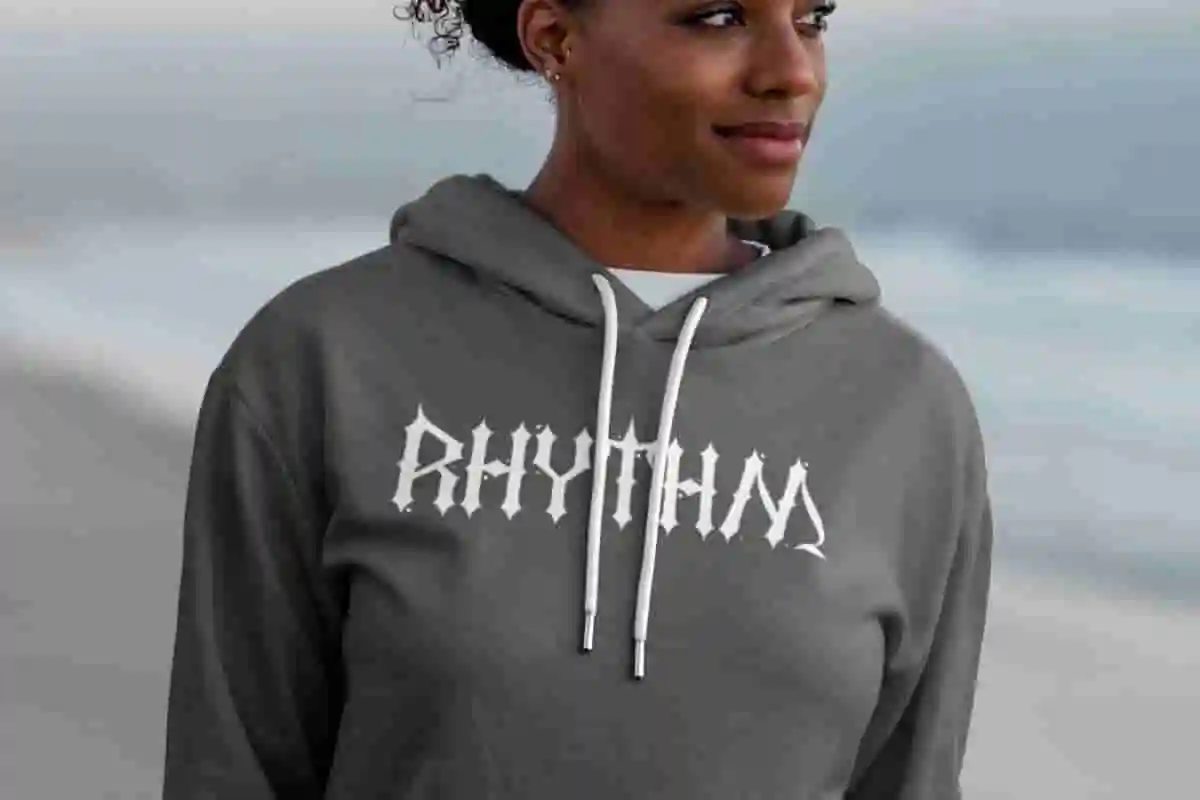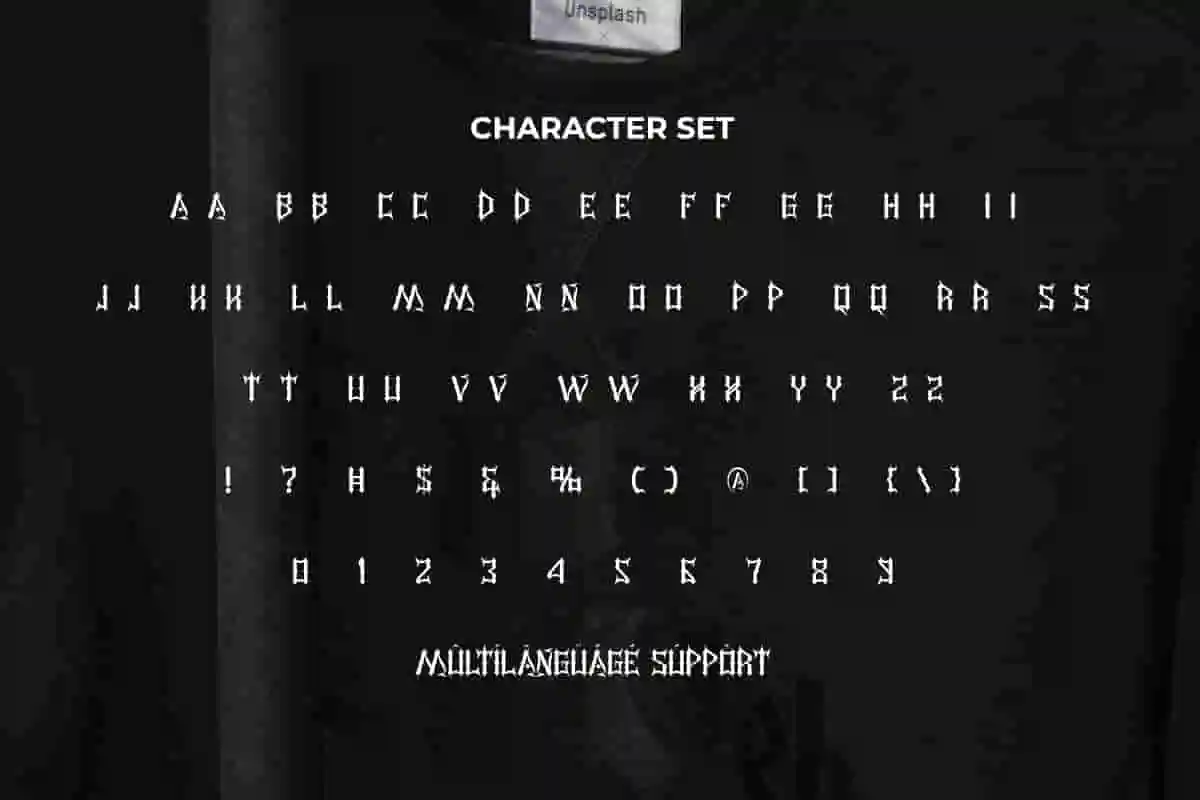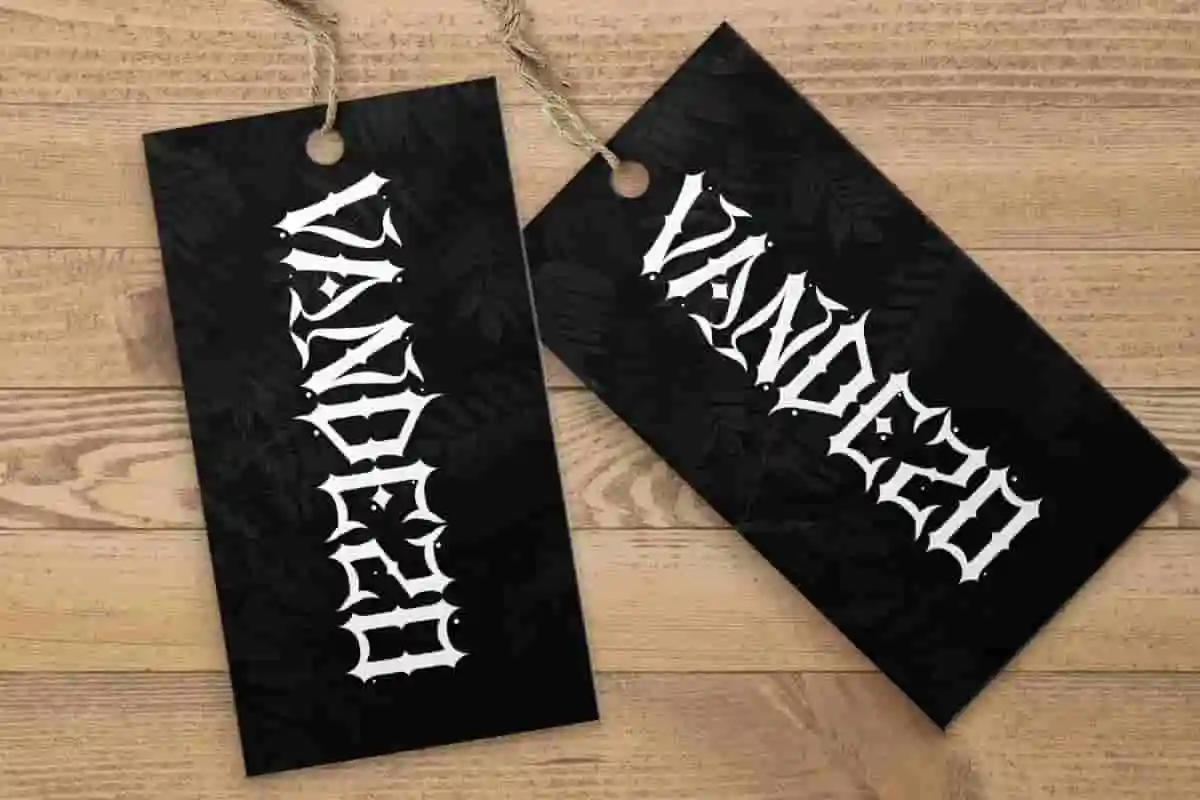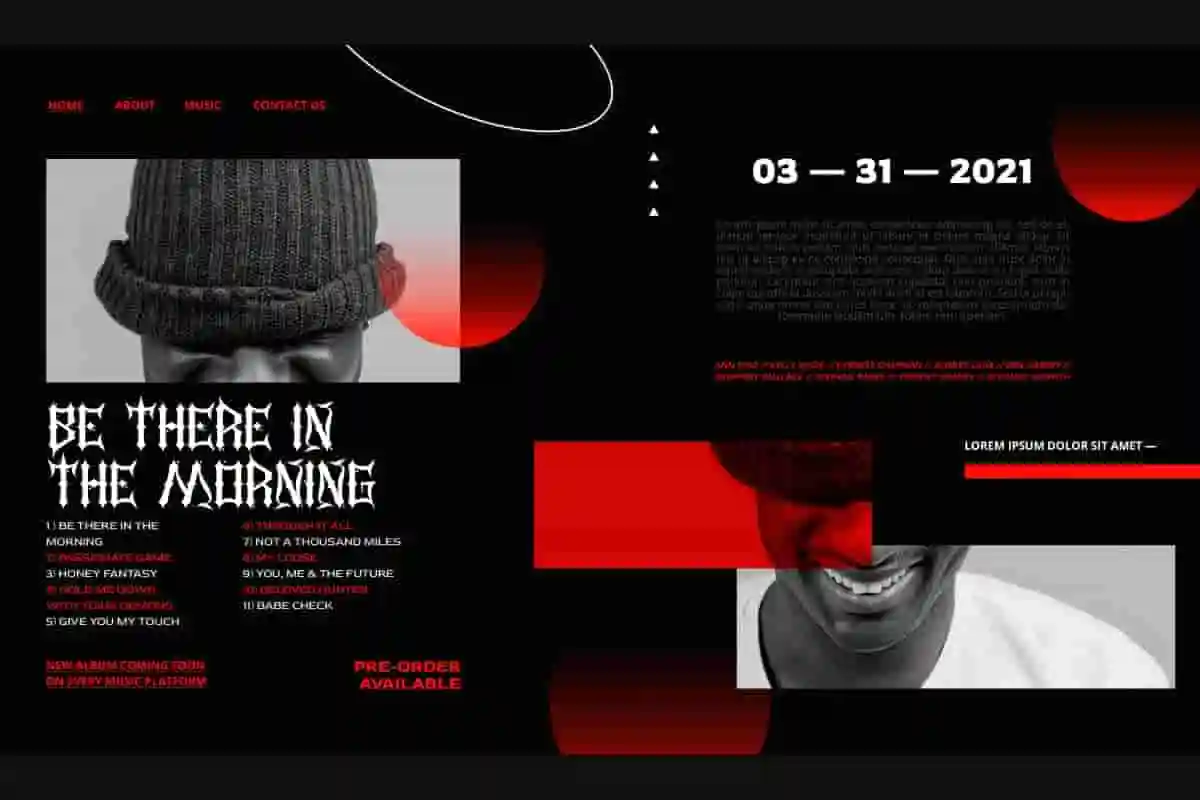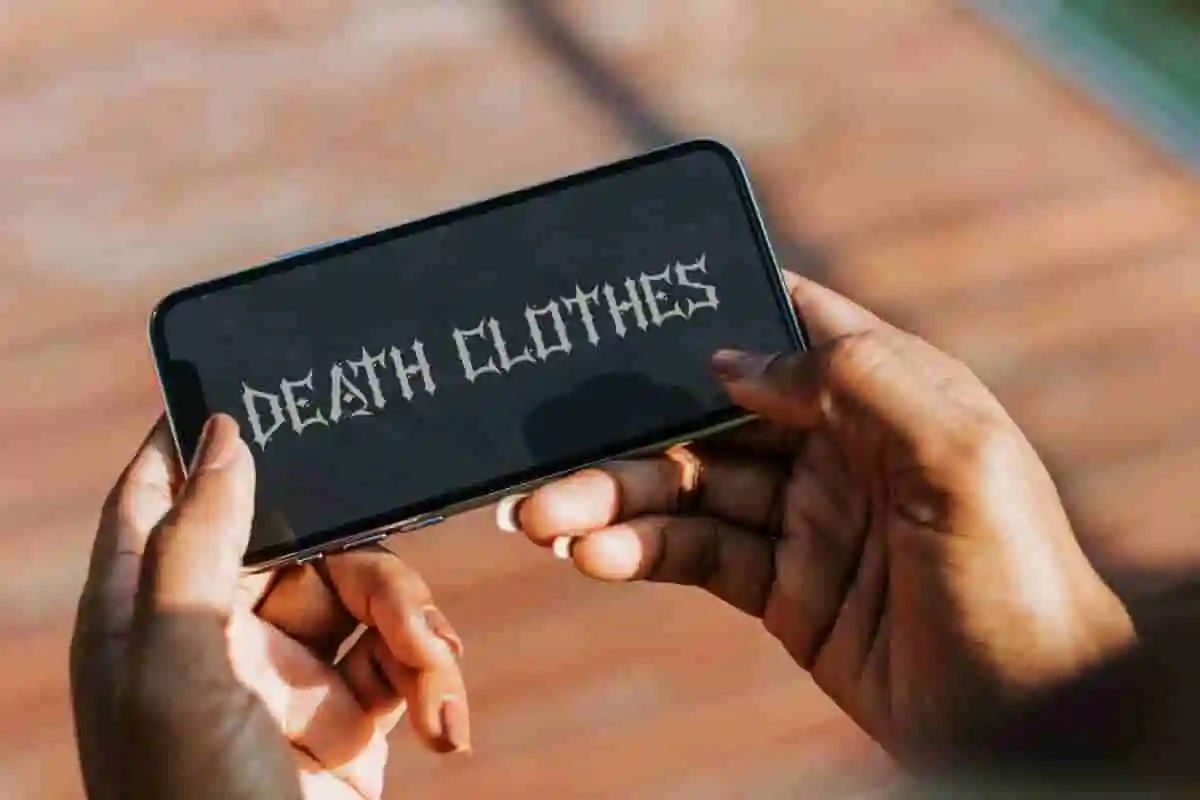
Death Clothes Font is a sumptuous blackletter font, created by NoahType. This font can give a luxurious royal impression and is still clearly readable for your design. It will be perfect for any designs, such as brand image, custom design, invitation, label, marketing material, menu, poster, printing, product packaging, quotes, signage, website, and many more!
Death Clothes Font includes full set of ALL CAPS for Uppercase and Lowercase Basic Characters, Numerals, Punctuation, and Symbol. This font will give awesome touch and also a perfect choice for many industries, such as accessories, advertising, art, café, fashion, game, movie, music, printing, publishing, etc.